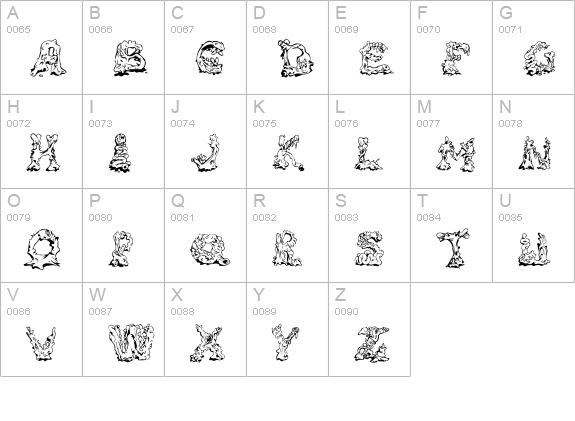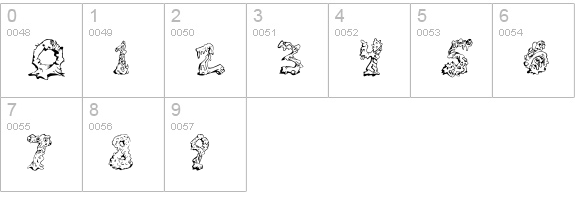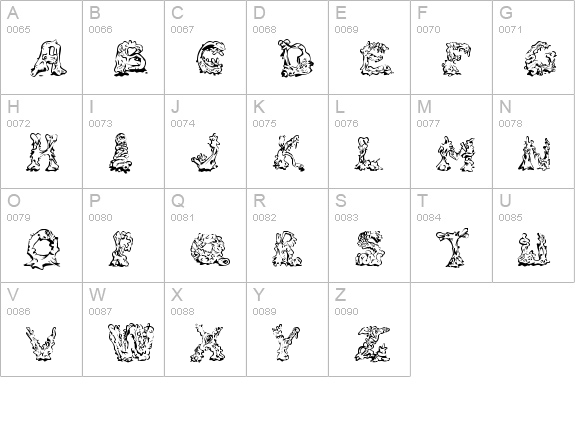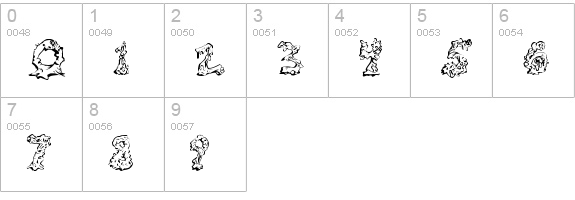
Riot Act Font Details
Riot Act font is a bold and rebellious typeface that exudes energy and attitude. With its sharp edges and strong presence, this font is sure to make a statement in any design project. Whether you are creating posters, banners, or social media graphics, Riot Act font will demand attention and leave a lasting impression. The best part? Riot Act font is completely free to download at FontsMarket.com. This means you can unleash your creativity without any cost barriers. So go ahead, download Riot Act font today and add a touch of rebellion to your designs.